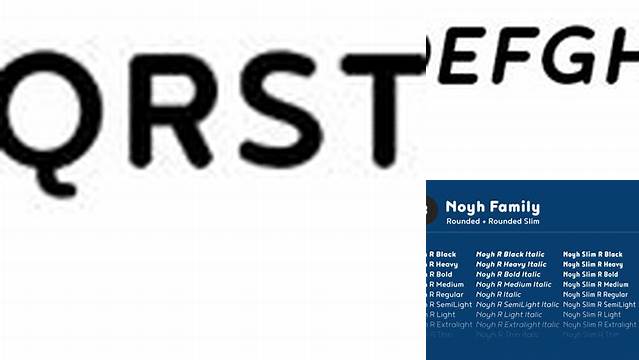
Hey guys! Are you on the hunt for a sleek, modern font that can make your designs pop? Look no further! In this article, we're diving deep into the world of Noyh R Bold font, a typeface that has been making waves in the design community. Whether you're a seasoned graphic designer or just starting out, understanding how to access and use this font can significantly elevate your projects. Weβll cover everything from what makes Noyh R Bold so special to where you can find it for free and how to use it effectively in your designs. So, let's jump right in and explore all the incredible possibilities that Noyh R Bold has to offer!
What Makes Noyh R Bold Special?
Noyh R Bold isn't just another font; it's a statement. Its clean lines, strong presence, and contemporary feel make it a versatile choice for a wide range of applications. Think about it β from eye-catching headlines to impactful branding, this font has the power to transform your work. The beauty of Noyh R Bold lies in its simplicity; it manages to be both understated and attention-grabbing at the same time. This balance is what makes it a favorite among designers who want to convey professionalism and modernity. Its clarity ensures readability across different mediums, whether it's printed materials, websites, or mobile applications. Furthermore, the boldness adds a touch of authority, making it perfect for titles, headings, and call-to-action buttons. This font isn't just about looking good; it's about communicating effectively. When you choose Noyh R Bold, you're opting for a typeface that speaks volumes without being overly ornate. Itβs the kind of font that can help your message cut through the noise and leave a lasting impression. In a world where first impressions matter, Noyh R Bold can be your secret weapon.
Tips for Using Noyh R Bold Effectively in Your Designs
Okay, you've got Noyh R Bold installed and ready to go β fantastic! But now comes the crucial part: how do you actually use it effectively in your designs? A great font is only as good as its application, so let's explore some tips to make the most of Noyh R Bold's unique qualities. First off, consider its strengths. Noyh R Bold is, well, bold! It commands attention and has a strong presence, making it perfect for headlines, titles, and branding materials where you want to make a statement. However, because of its boldness, it's best used sparingly in body text. Long paragraphs in a bold font can be tiring on the eyes, so reserve it for shorter bursts of impactful text. Pairing fonts is an art, and Noyh R Bold plays well with others. Try pairing it with a lighter, more understated font for body text to create a visual contrast that's both appealing and readable. Think about a classic sans-serif or a clean serif font for the body, letting Noyh R Bold shine in the headings. Kerning and letter spacing are also important considerations. Sometimes, a font looks even better with a little tweaking. Adjust the spacing between letters to achieve the perfect visual balance. In design, white space is your friend. Don't overcrowd your layout β give Noyh R Bold room to breathe. The more space around it, the more impact it will have. And finally, always consider the context of your design. Is it for a modern tech company? A creative agency? A traditional business? Noyh R Bold is versatile, but it's important to ensure it aligns with the overall tone and message of your project. With these tips in mind, you'll be able to wield Noyh R Bold like a pro and create designs that truly stand out!
Examples of Designs That Use Noyh R Bold Successfully
To really understand the power of Noyh R Bold, let's take a peek at some real-world examples of designs where it shines. Seeing how professionals use a font can spark inspiration and give you a better sense of its potential. Think about logos β Noyh R Bold's strong, confident lines make it an excellent choice for brand identities that want to convey modernity and authority. Many tech startups and forward-thinking companies have embraced this font for their logos, creating a sleek and memorable visual identity. In the world of web design, Noyh R Bold is often used for headers and navigation menus. Its readability and visual impact help guide users through the site, ensuring they don't miss important information. The font's clean aesthetic also complements minimalist web designs beautifully. Print materials, such as posters and brochures, are another area where Noyh R Bold excels. Its boldness makes headlines pop, drawing the reader's eye and encouraging them to engage with the content. Event promotions, advertising campaigns, and even book covers can benefit from the font's striking presence. Packaging design is yet another canvas where Noyh R Bold can shine. Imagine a product with a label featuring this font β it instantly conveys a sense of quality and sophistication. From food products to cosmetics, Noyh R Bold adds a touch of class. By analyzing these examples, you can see that Noyh R Bold isn't just a font; it's a design tool that can elevate your projects to the next level. So, go ahead, get inspired, and start experimenting with how you can incorporate it into your own work!
So there you have it, guys! We've journeyed through the world of Noyh R Bold font, from its standout qualities and where to find it for free, to the nitty-gritty of downloading and installing, troubleshooting common issues, and mastering its use in your designs. Hopefully, you're now feeling confident and inspired to incorporate this fantastic font into your creative toolkit. Remember, Noyh R Bold isn't just a typeface; it's a statement β a way to add a touch of modern elegance and authority to your projects. Whether you're designing a logo, crafting a website, or putting together marketing materials, Noyh R Bold has the versatility to make your vision a reality. Now, it's your turn to unleash your creativity and see what you can create with this amazing font. Happy designing!